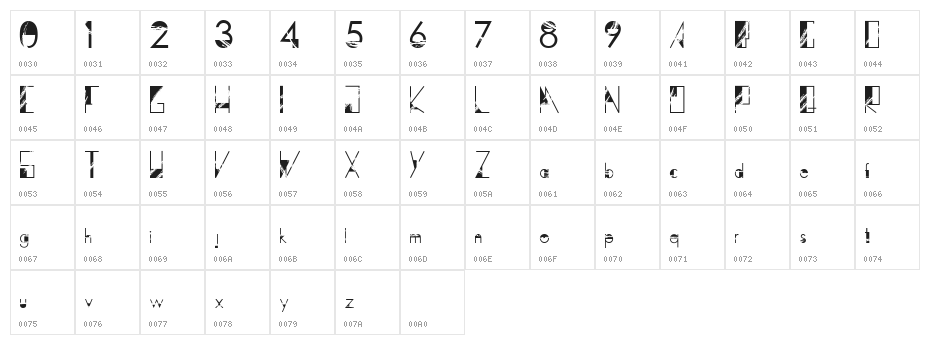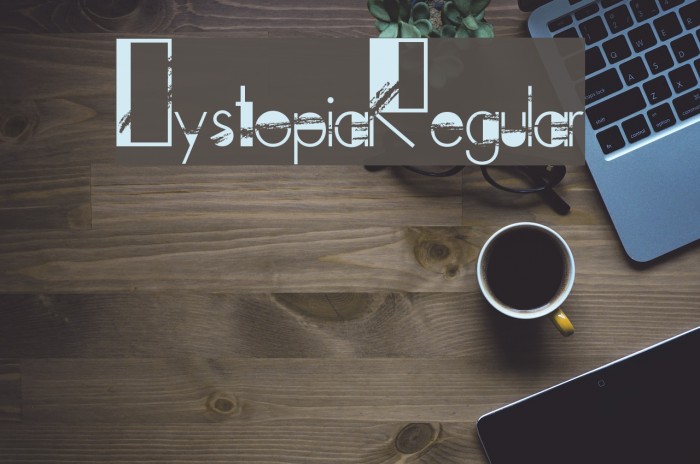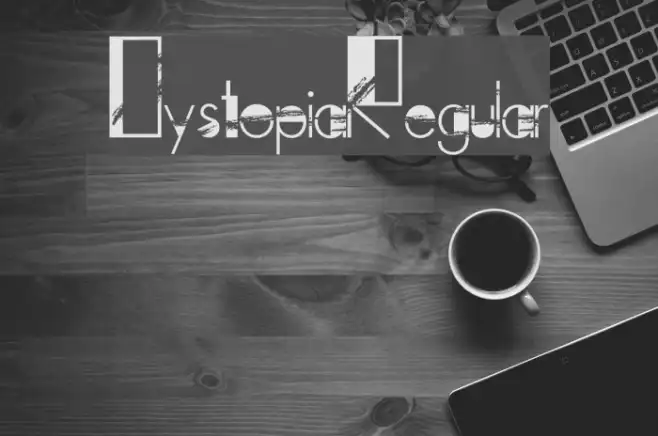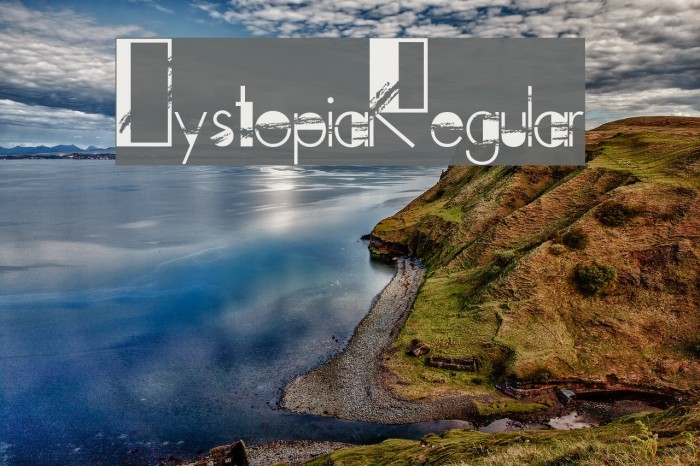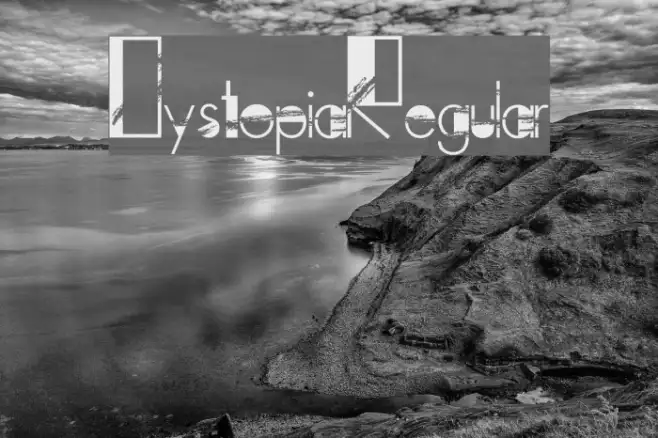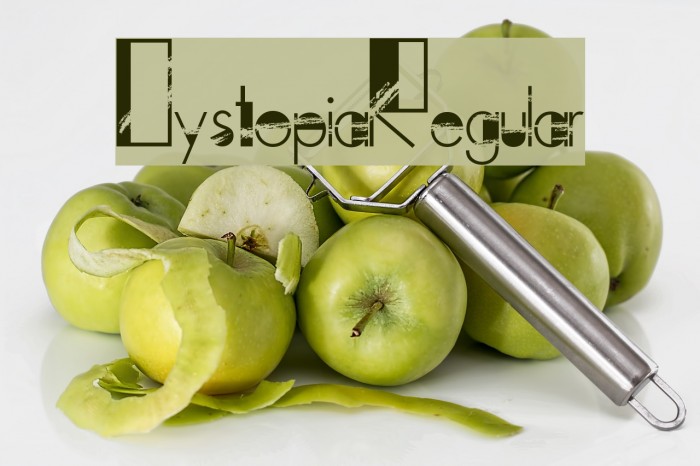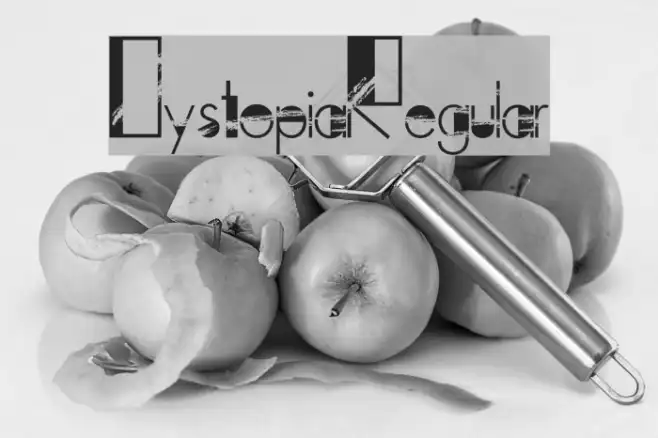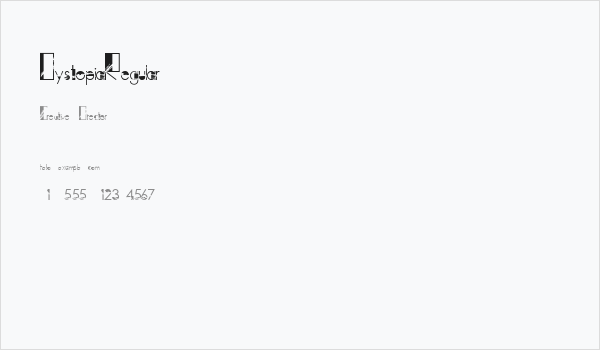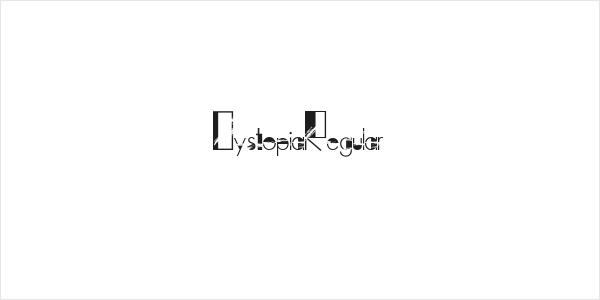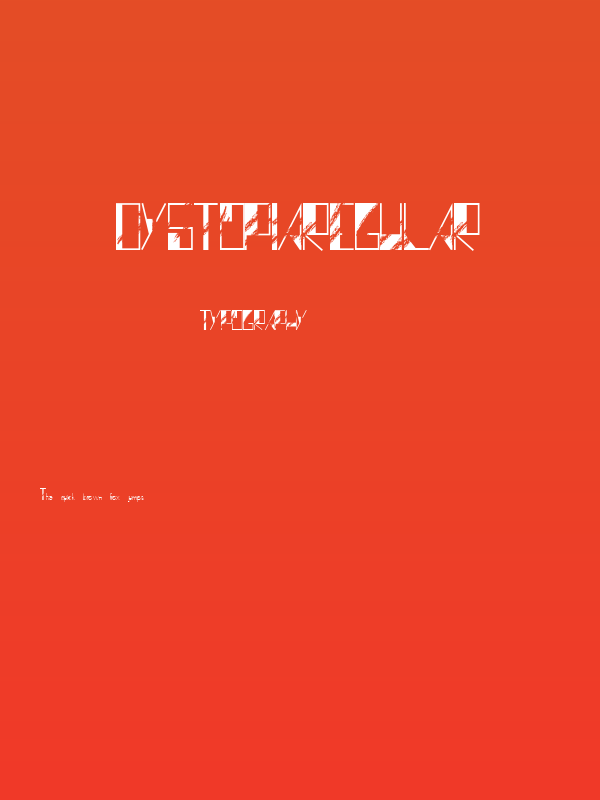
DystopiaRegular Font
DystopiaRegular Description
This font features a bold, distressed style with a futuristic and edgy appearance. The uppercase letters are characterized by sharp angles and geometric shapes, while the lowercase letters maintain a more streamlined and modern look. The numbers and special characters are consistent with the overall distressed theme, adding a unique texture to the design. The font's irregular patterns and rough edges give it a dynamic and rebellious feel, making it ideal for projects that require a strong visual impact.
| Overall Style | Modern, Edgy |
| Proposed Projects | Ideal for album covers, movie posters, video game titles, and edgy branding projects. |